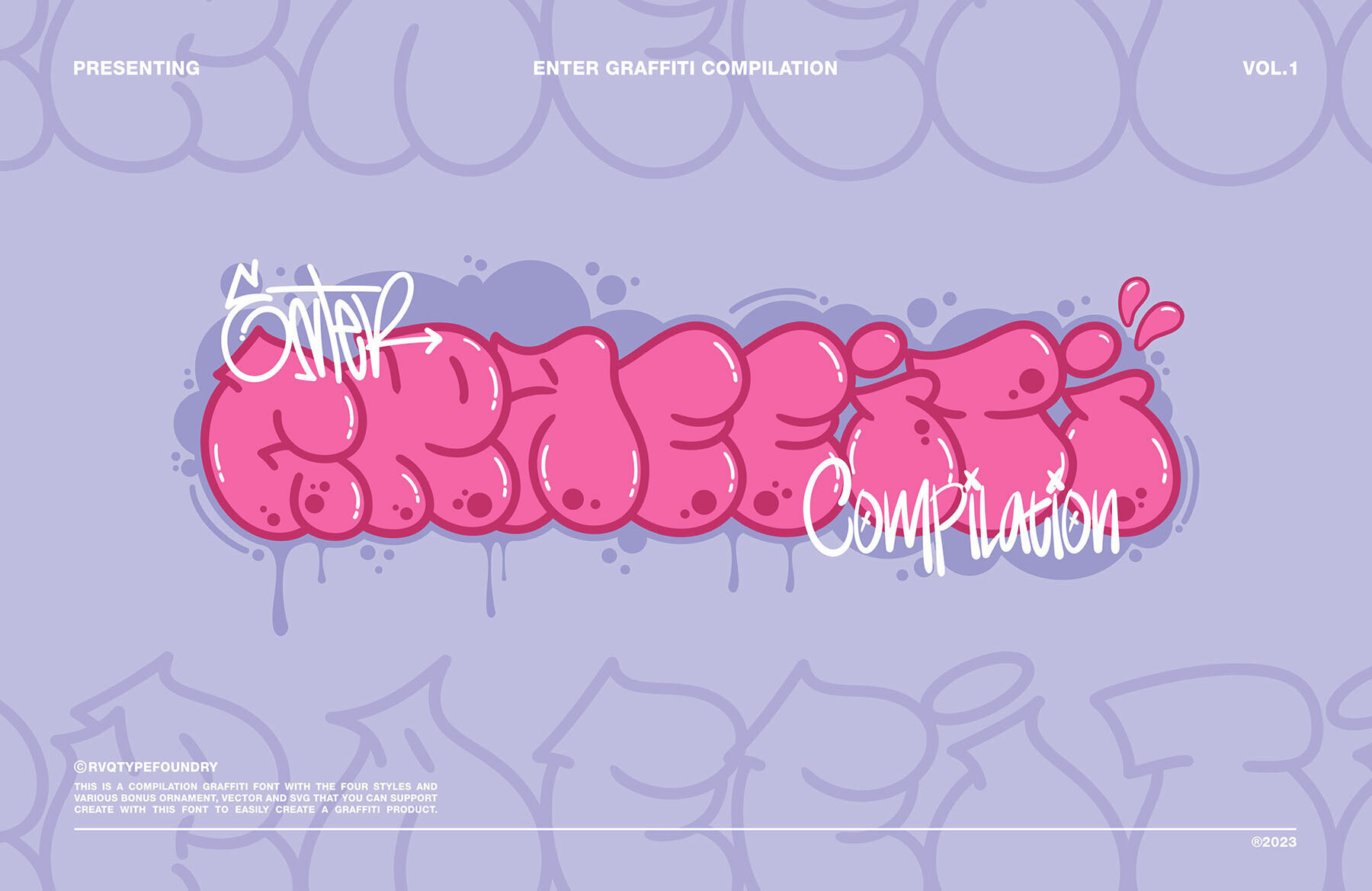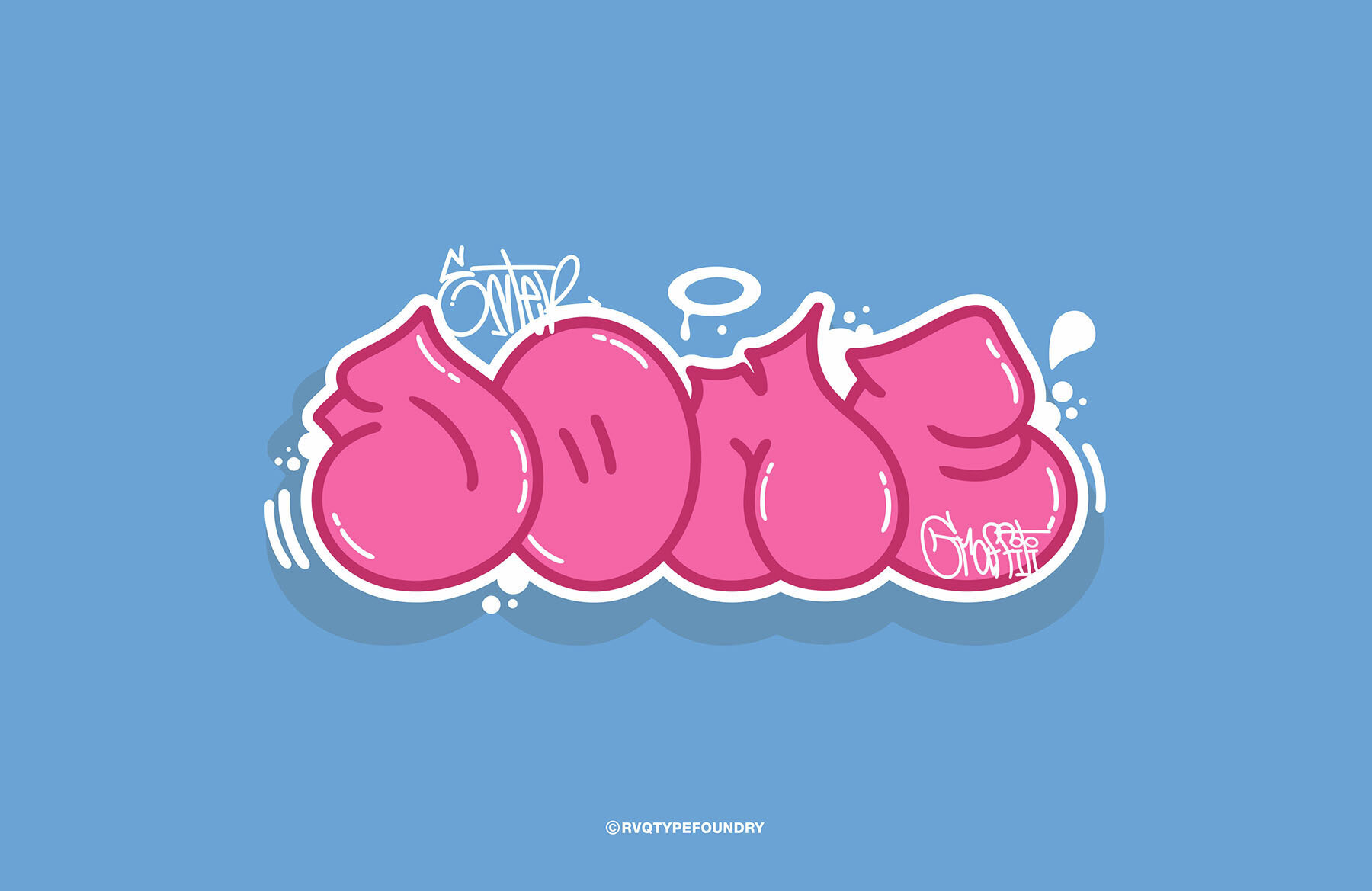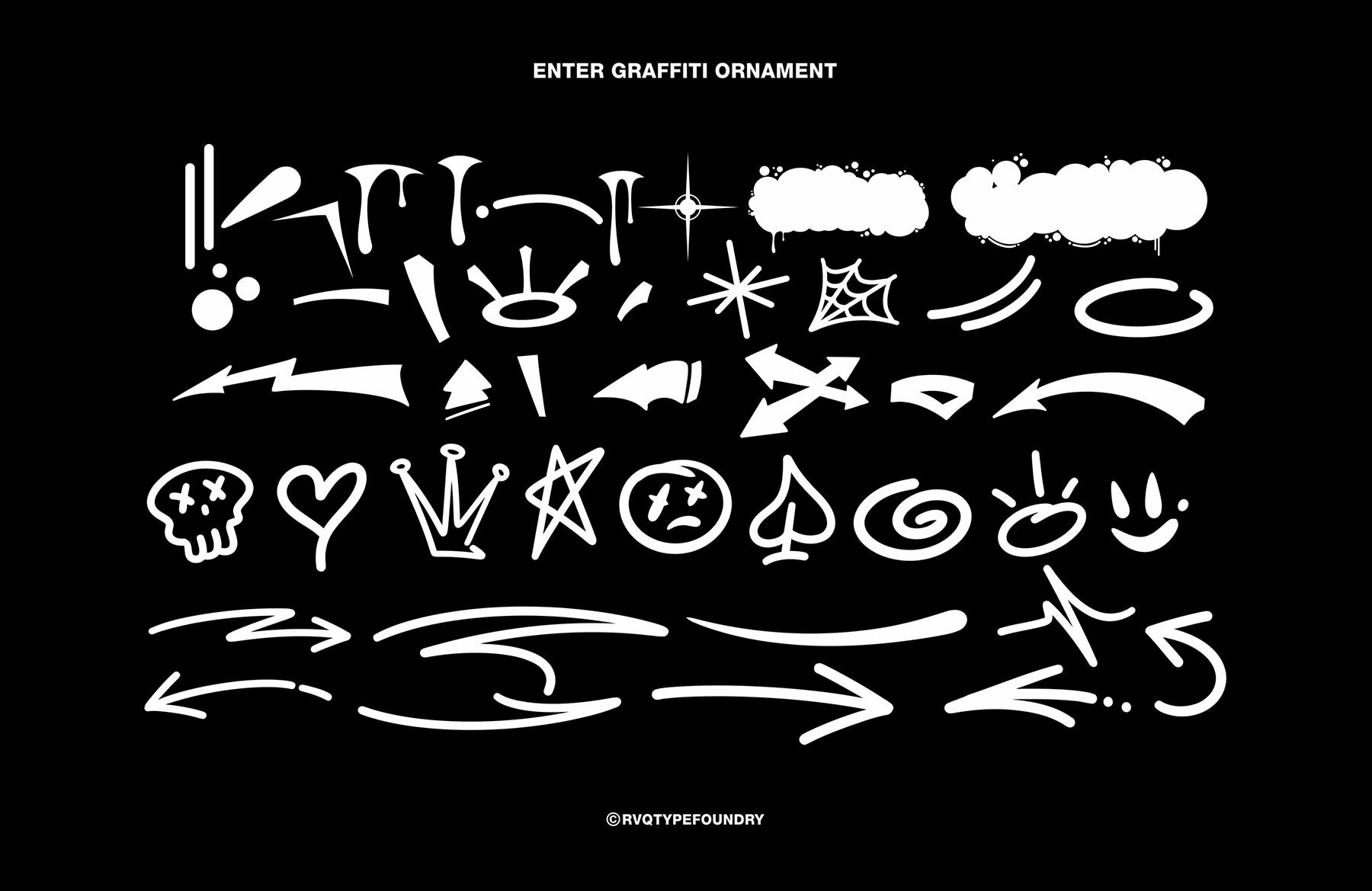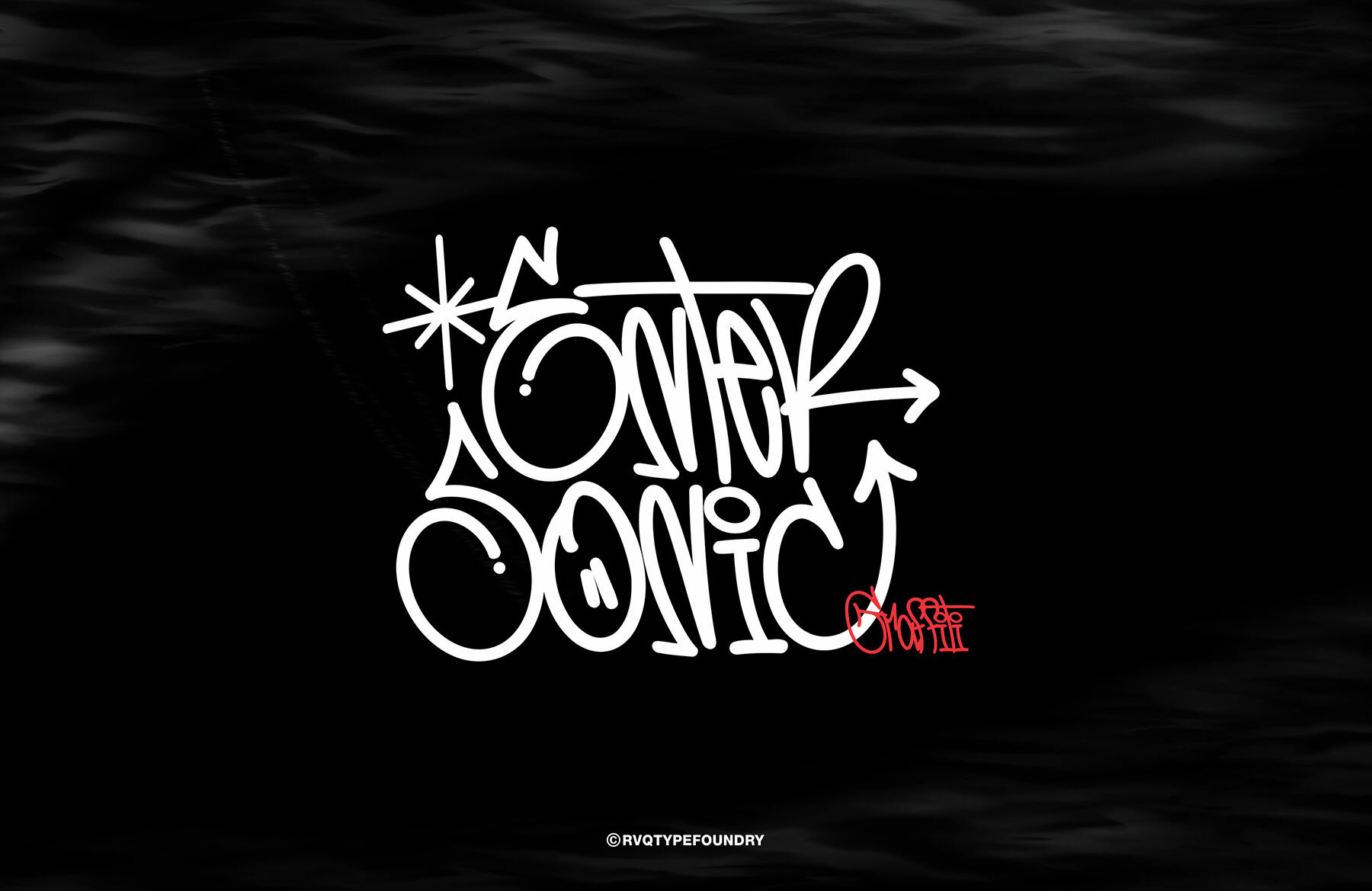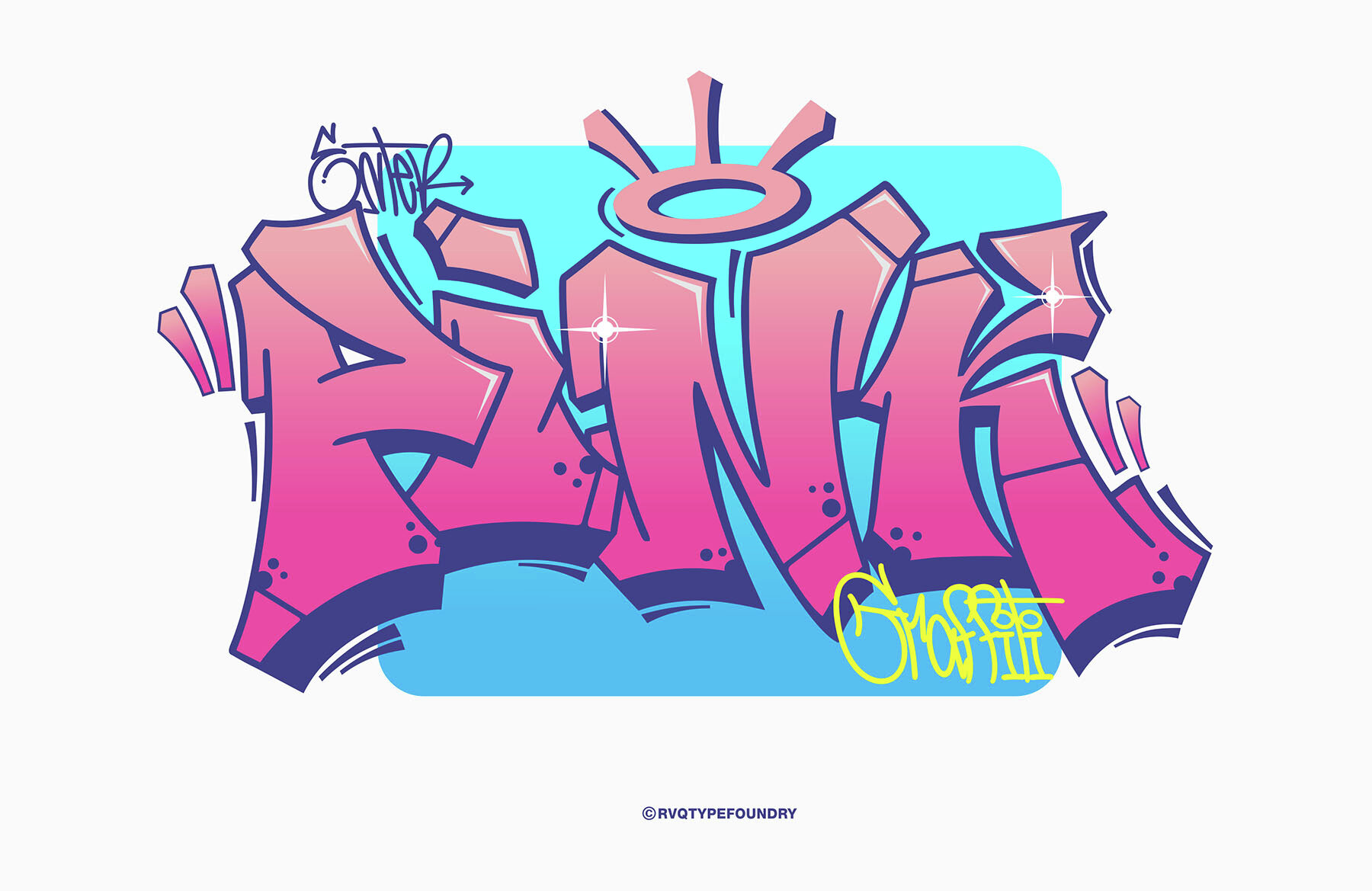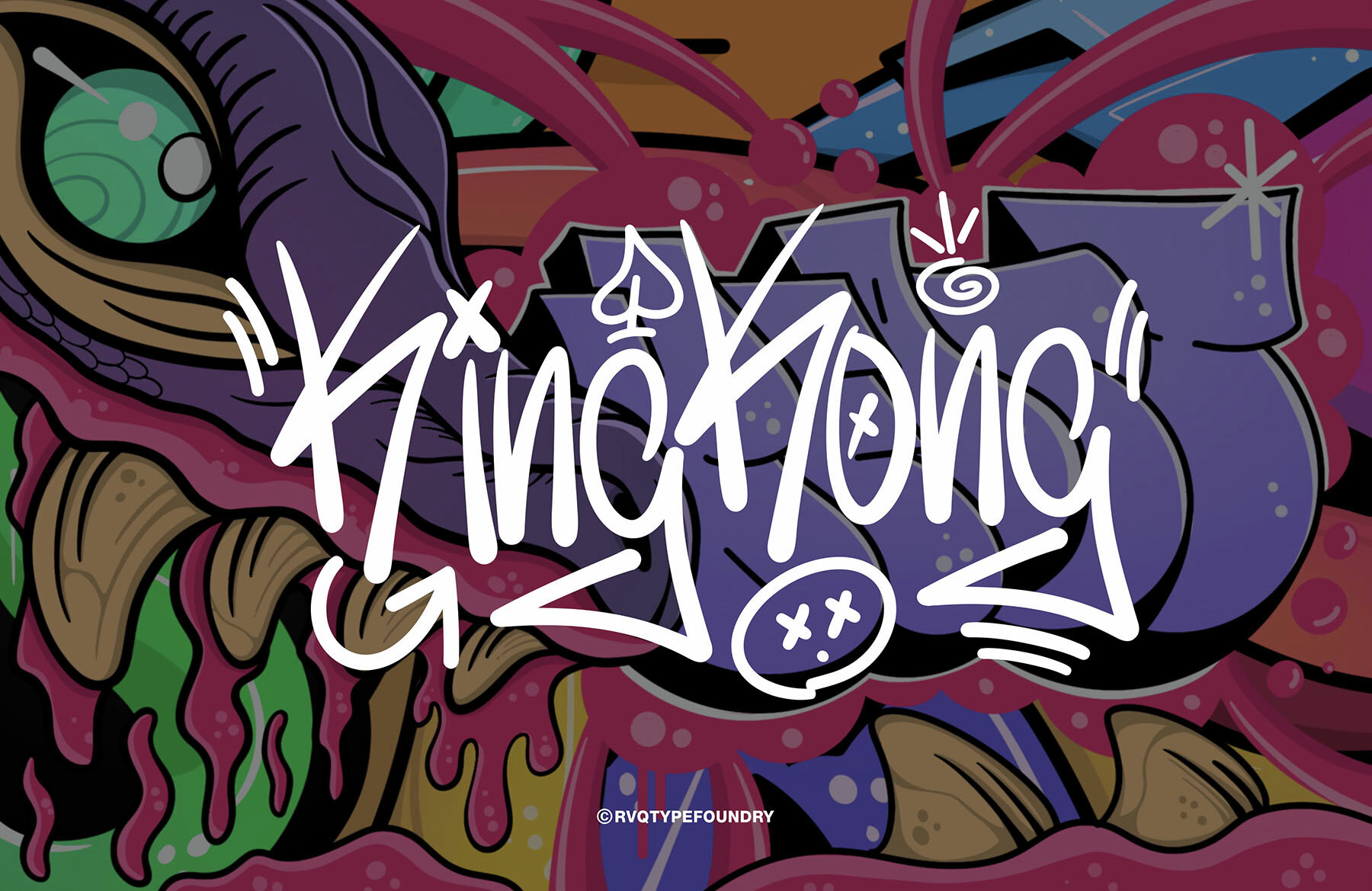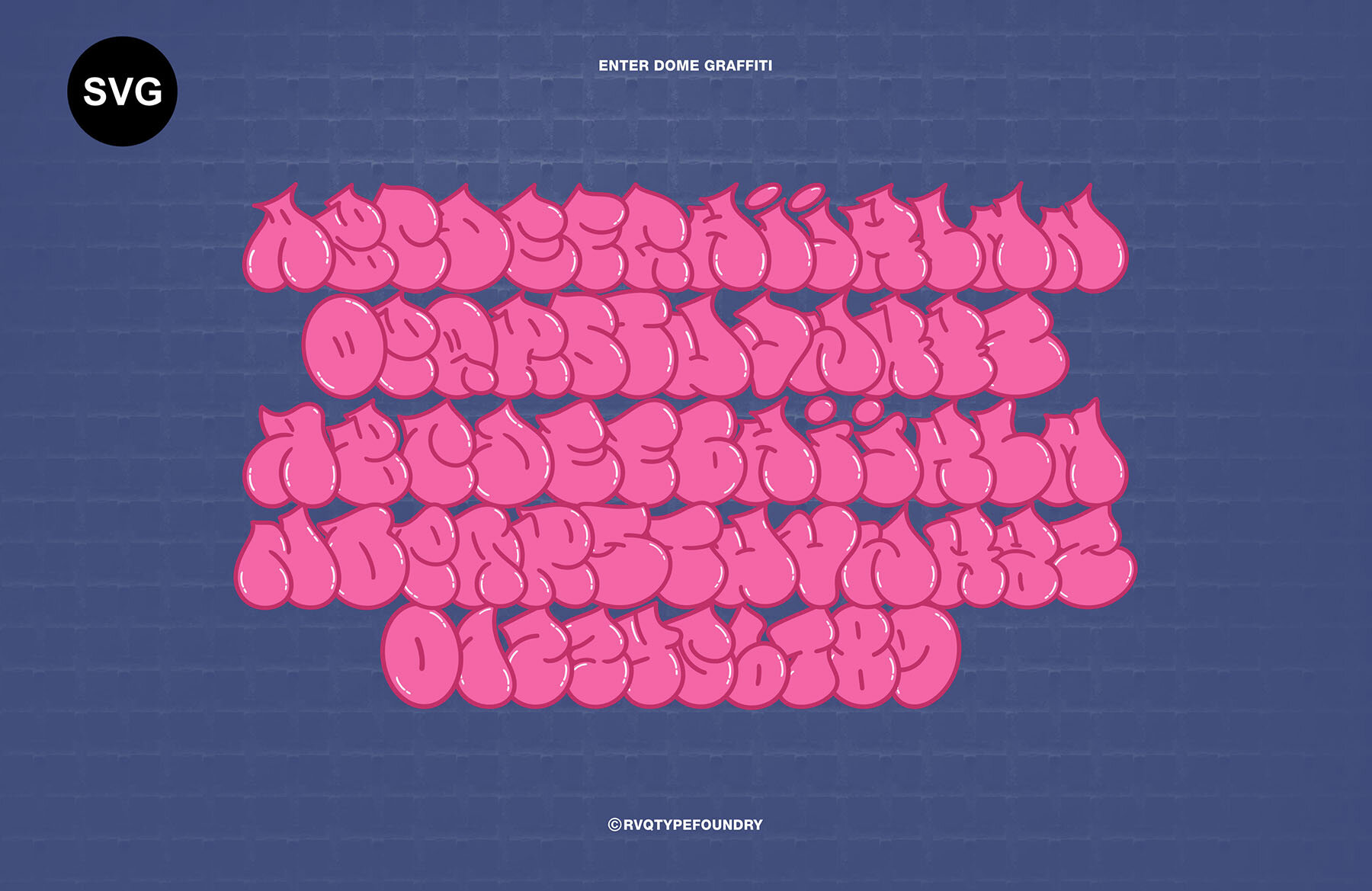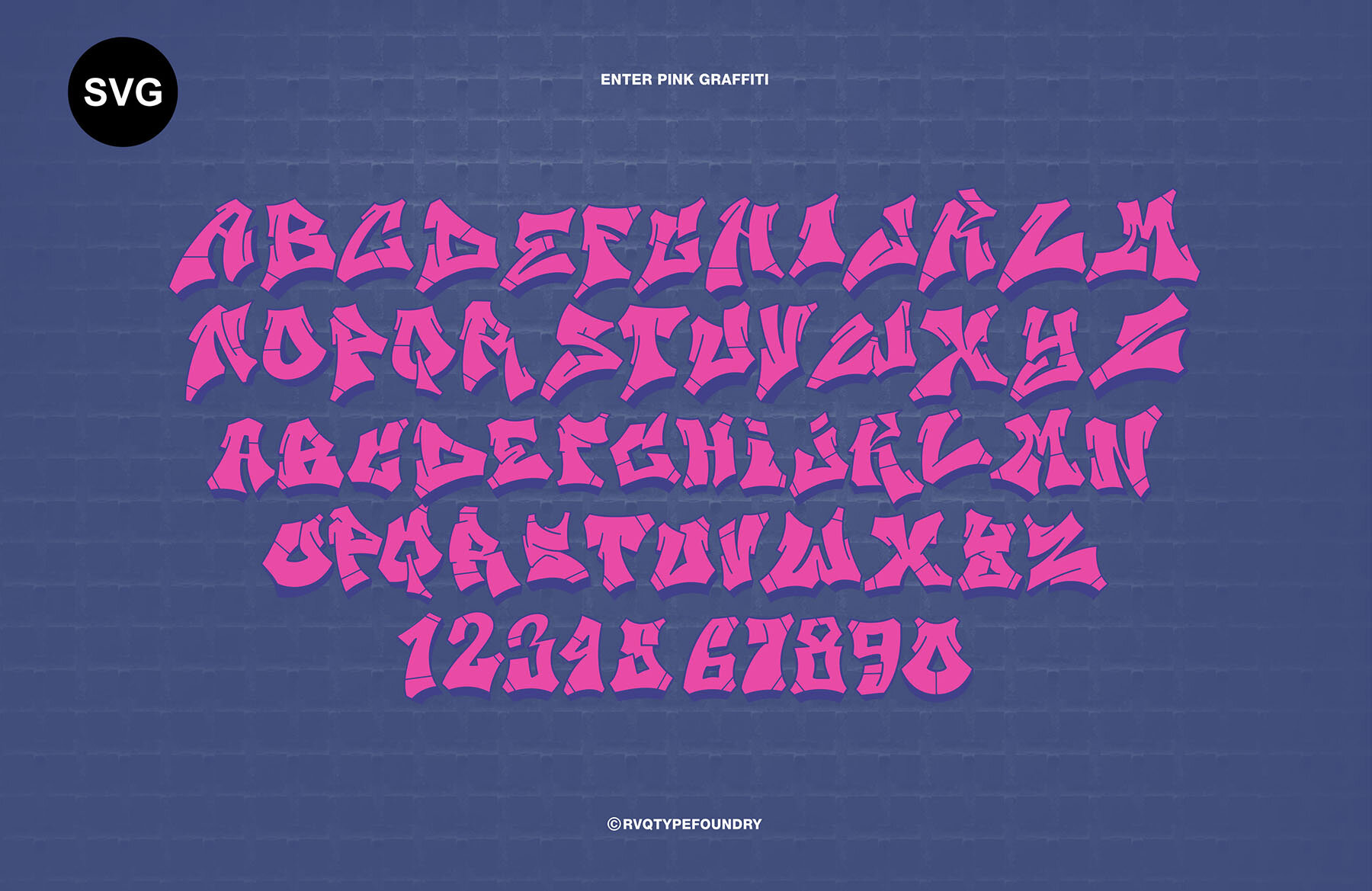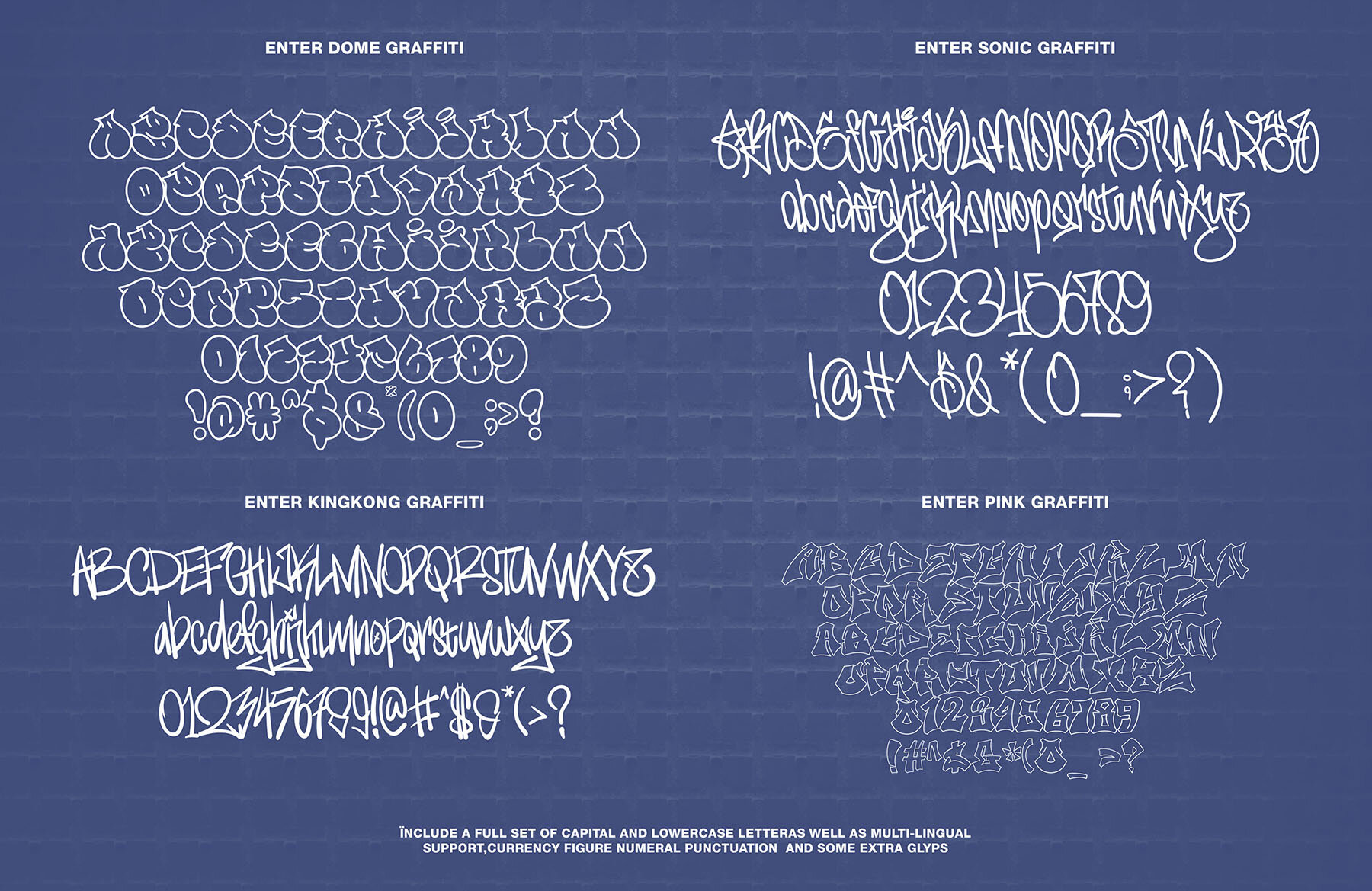
Enter Graffiti Compilation Font
The Enter Graffiti Compilation by Rvq Type Foundry brings an elegant and unique touch to your designs. This graffiti-inspired font set offers an array of character styles, allowing for beautiful combinations by mixing uppercase and lowercase letters with alternative glyphs. Designed with creativity in mind, this collection consists of four distinct styles, complemented by bonuses to enhance your creative projects. The font was dedicated to the designer’s mother in her battle against cancer, reflecting hope and healing.Enter Graffiti Compilation: Versatile Graffiti Fonts in Multiple Styles